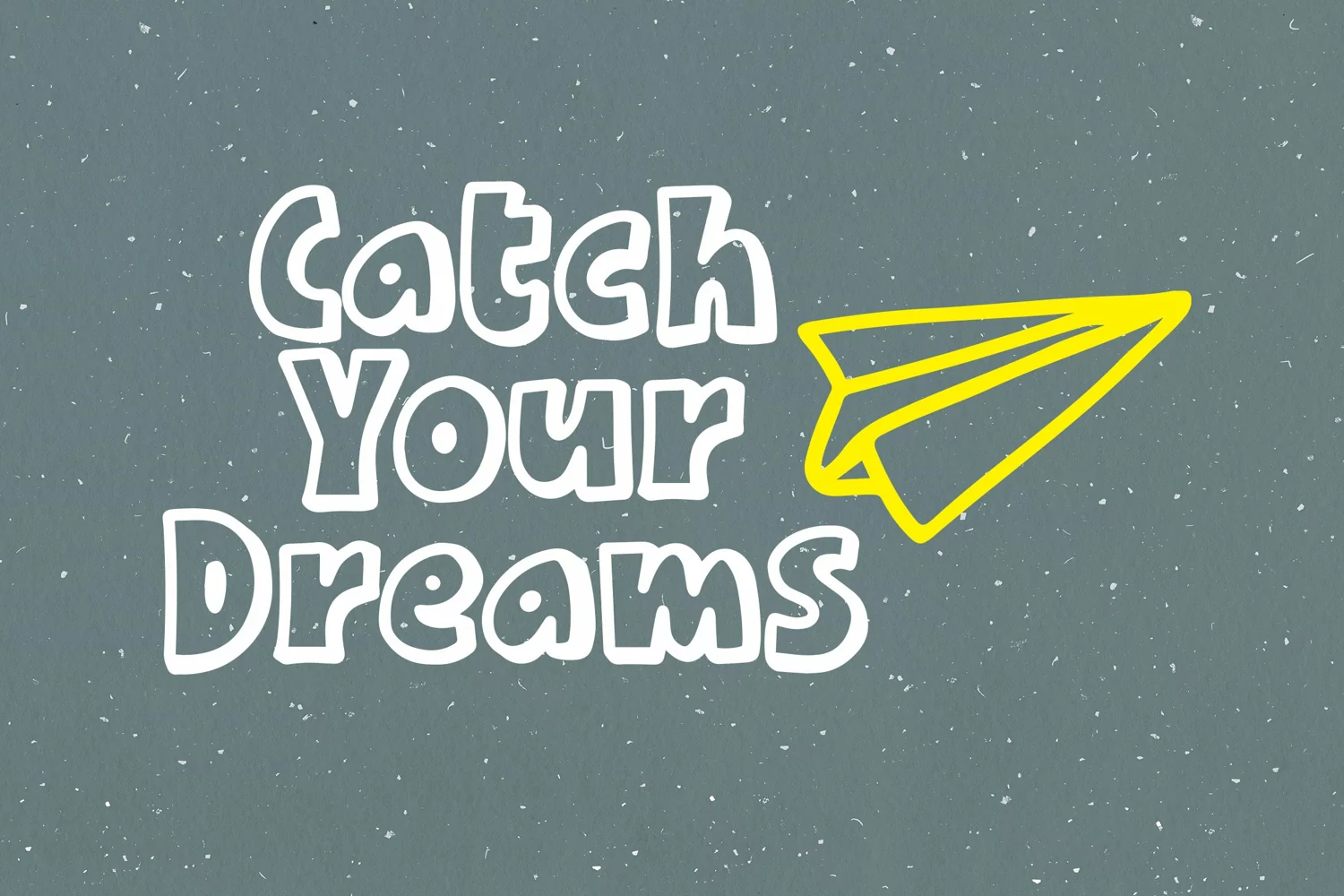
Dante - Cartoon Font that contain lowercase, uppercase, symbol, and also support multi language. There’s a lot ligatures in this font. This Font also comes with ligatures, alternates and many more. this font suitable for fashion, branding, catalog and other design what you want.
Dante